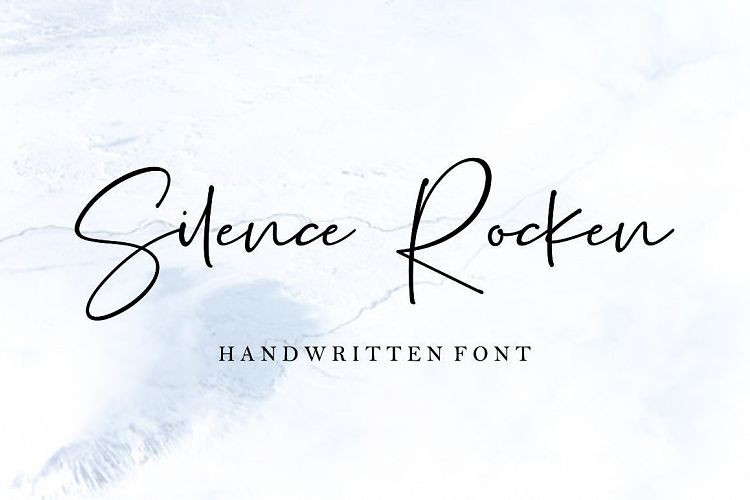
Silence Rocken Handwritten Font
Silence Rocken Font is a new fresh handmade calligraphy font created by fikryal. Silence Rocken Handwritten Font is a new modern & stylish handwritten font. I’ts Perfect for logo,branding, invitation, tittle, wedding designs, social media posts, advertisements, product packaging, product designs, label, photography, watermark, special event,magazine,web design,etc.